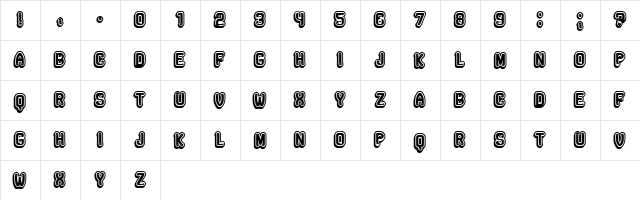
Rockefeller 3D Extravagant Flat Regular
Design Context for Rockefeller 3D Extravagant Flat Typeface
Rockefeller 3D Extravagant Flat is a composed and adaptable typeface that performs quietly and consistently across a wide range of design contexts.